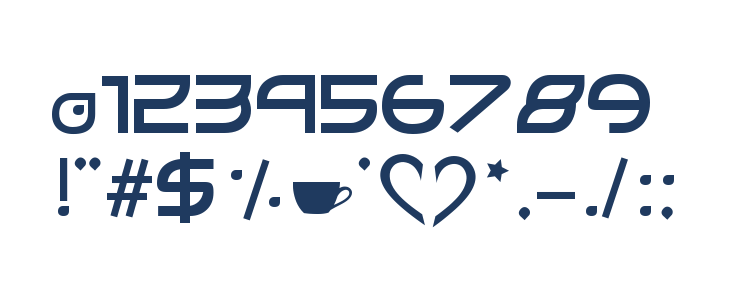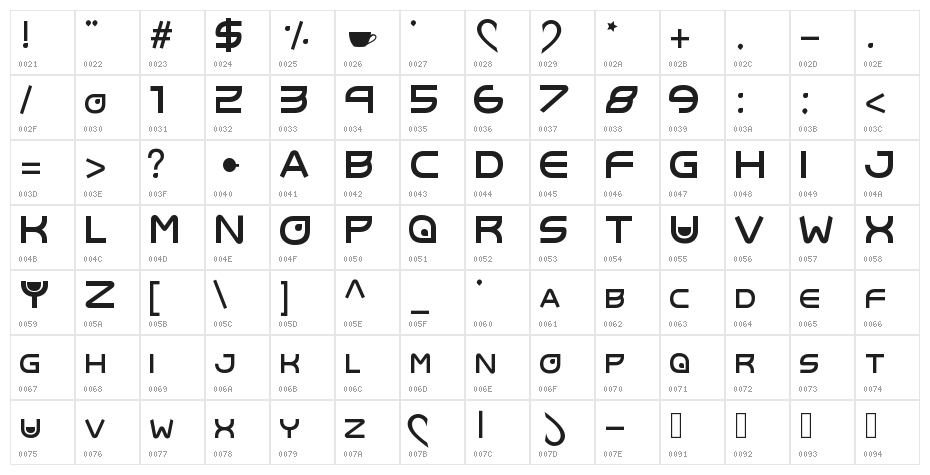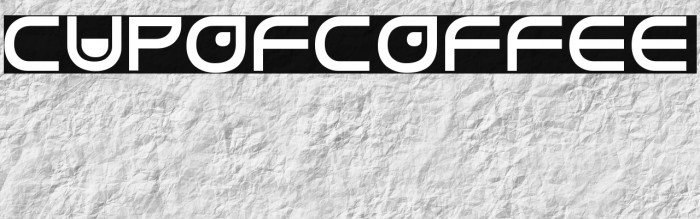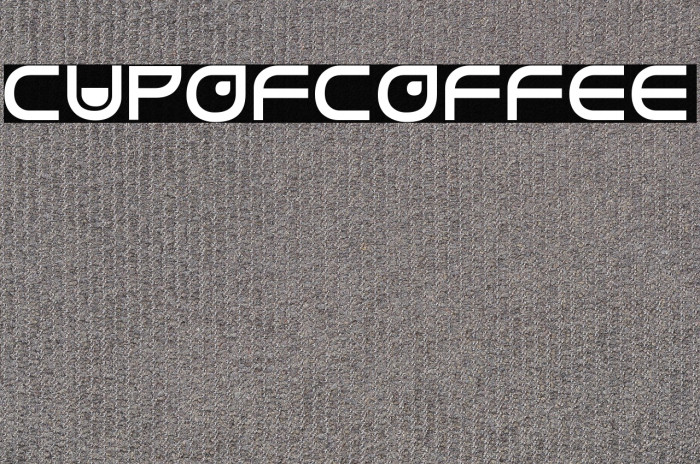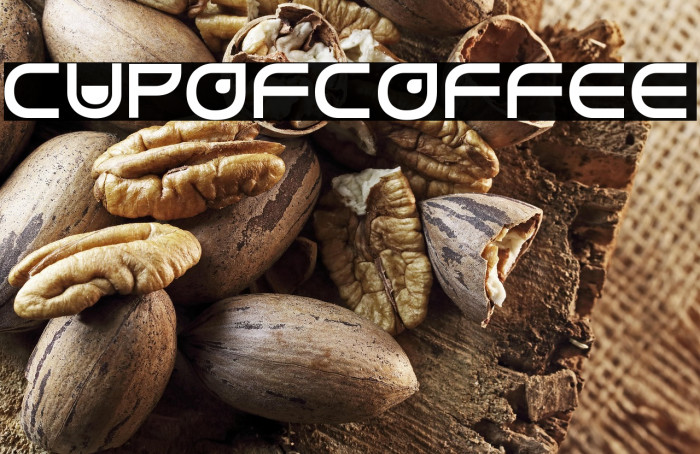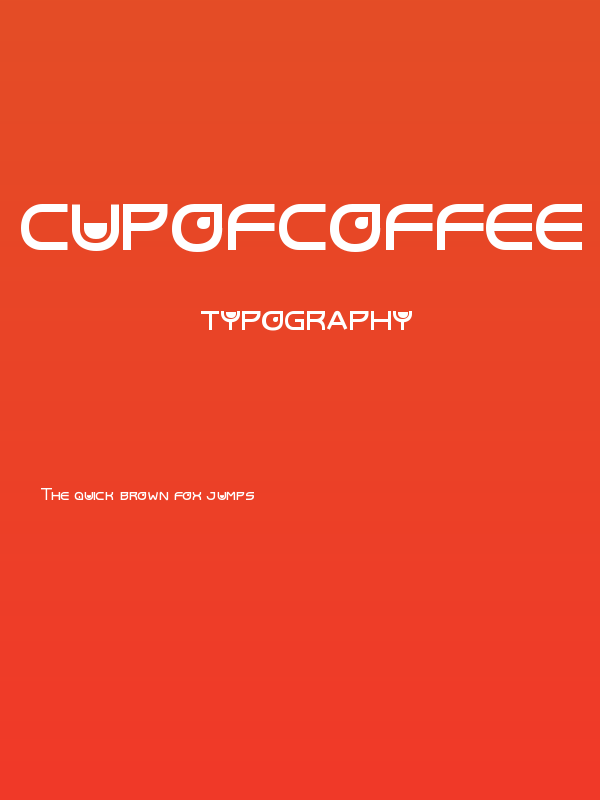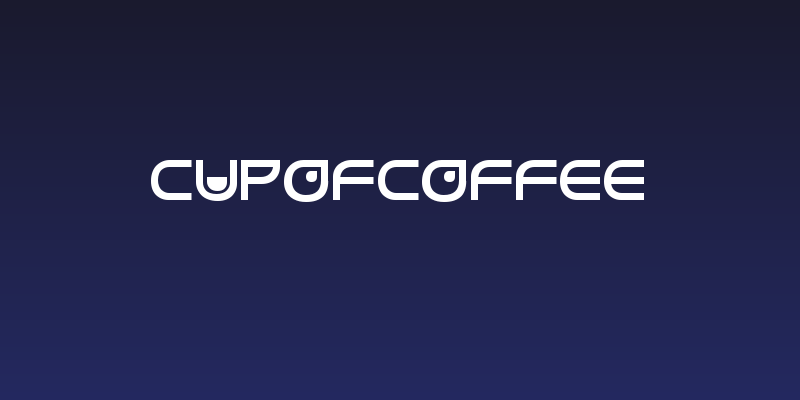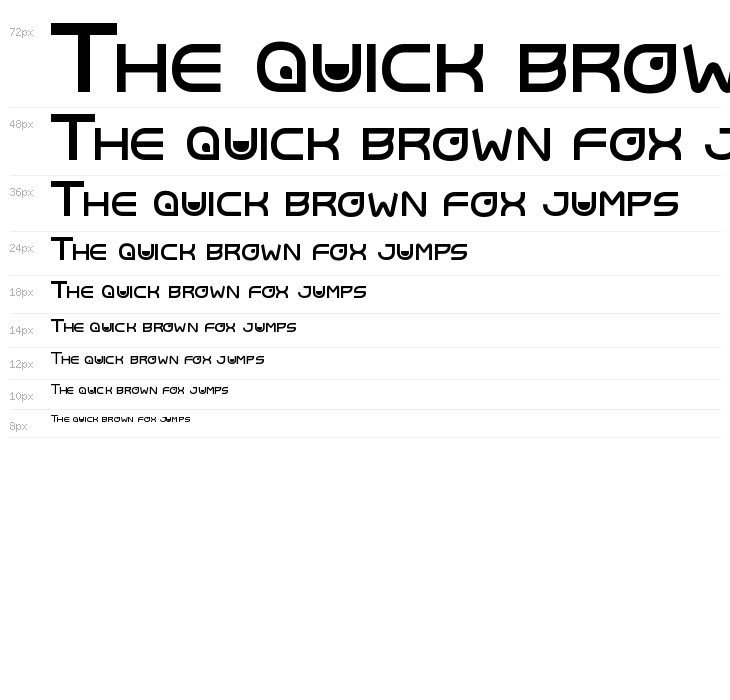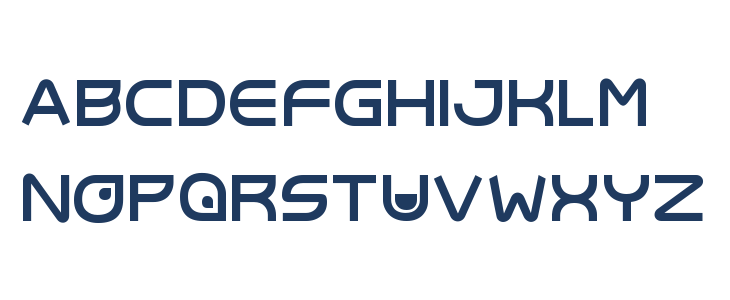
cupofcoffee Font
cupofcoffee Description
This font features a modern and geometric design with a unique blend of curves and straight lines. The uppercase letters have a bold presence with rounded edges, creating a futuristic and sleek appearance. The lowercase letters maintain a consistent style, complementing the uppercase with similar geometric forms. Numbers are distinct and easily readable, while special characters add a playful touch with symbols like a coffee cup and heart. The overall design is clean and minimalistic, making it suitable for contemporary projects.
| Use Case | Headlines, Logos, Branding |
| Proposed Projects | Ideal for branding, technology-related designs, modern advertising, and creative projects that require a contemporary and stylish look. |